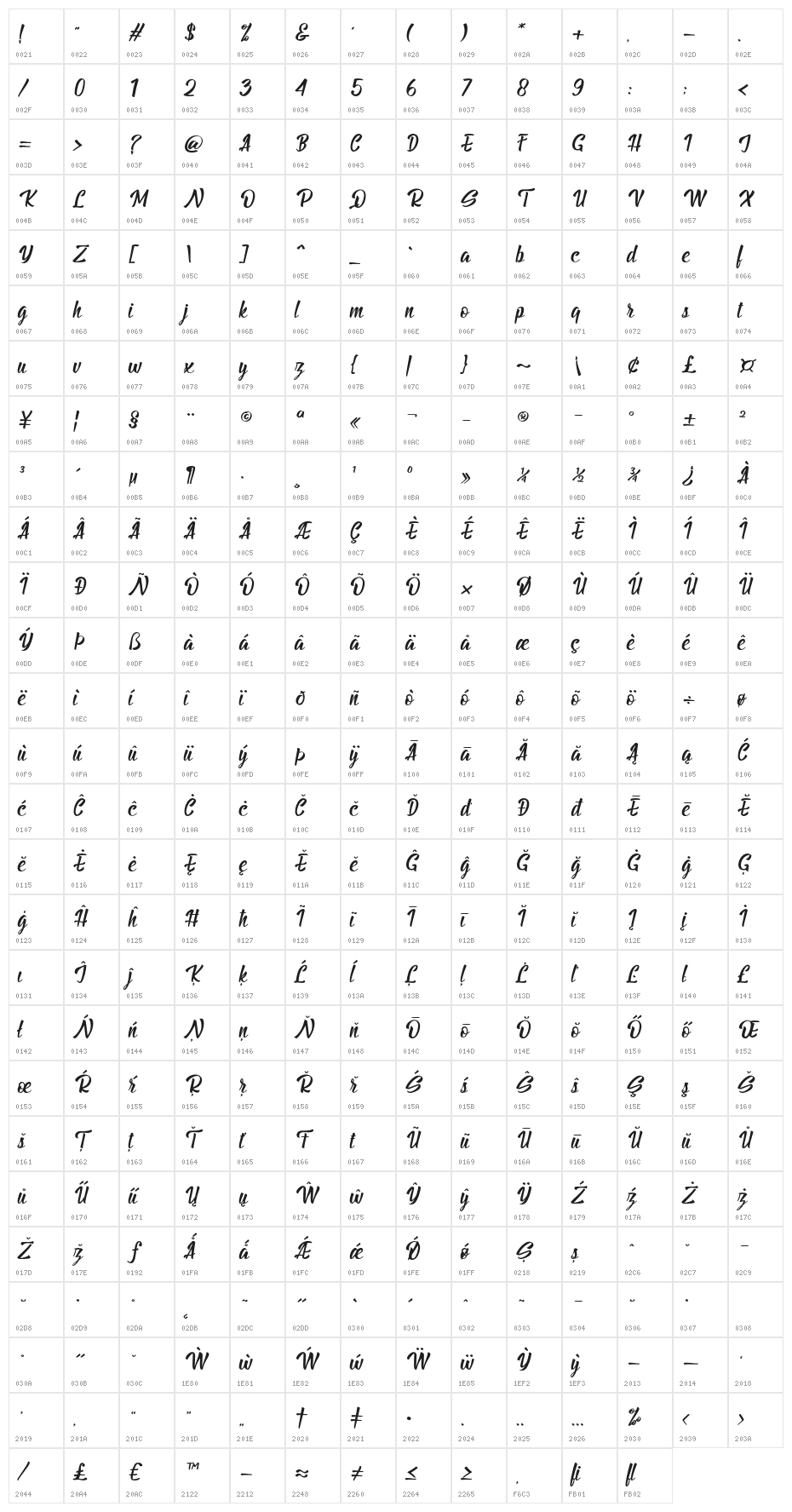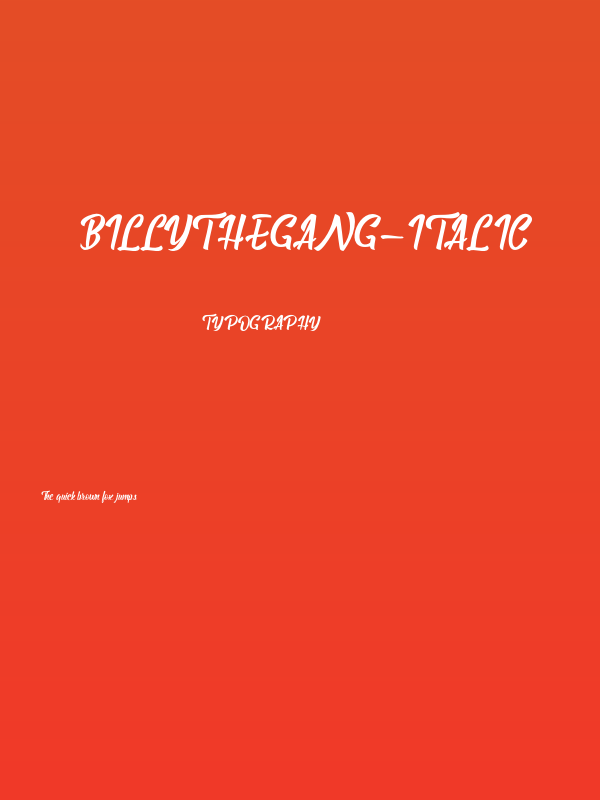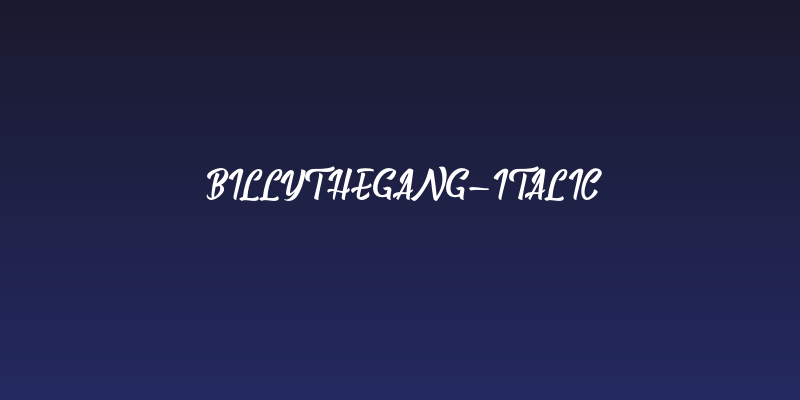
BillyTheGang-Italic Font
BillyTheGang-Italic Description
This font features a dynamic and energetic script style with a strong italic slant, giving it a sense of motion and flair. The characters are bold and fluid, with smooth curves and sharp edges that create a lively and engaging appearance. The uppercase letters are particularly striking, with a bold presence that commands attention. The lowercase letters maintain the same fluidity, offering a cohesive look throughout. The numerals are consistent with the overall style, providing a clear and readable format. Special characters are well-integrated, maintaining the font's energetic and stylish aesthetic.
| Proposed Projects | Ideal for branding, logos, invitations, and any project requiring a bold, stylish script. |